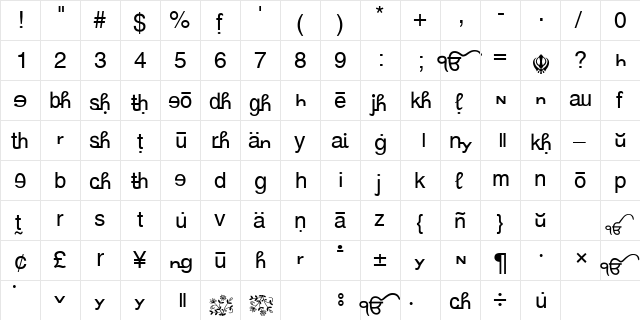
GurbaniRomanizing Regular
Design Context for GurbaniRomanizing Typeface
GurbaniRomanizing is a composed and adaptable typeface that performs quietly and consistently across a wide range of design contexts.